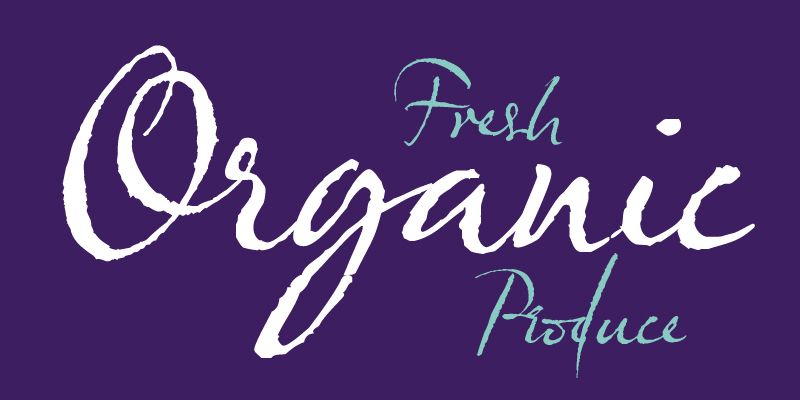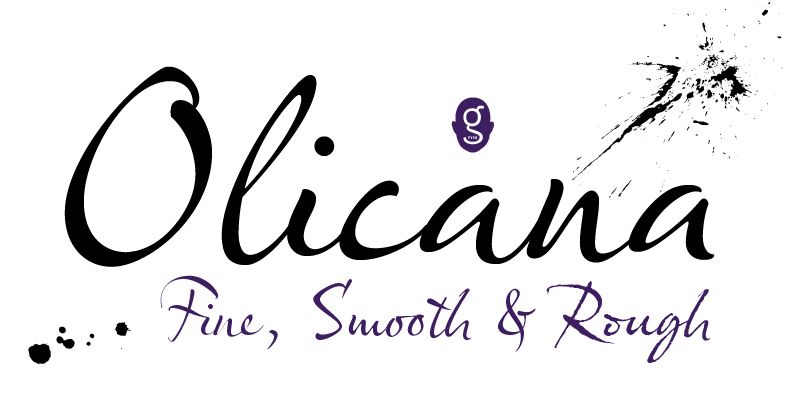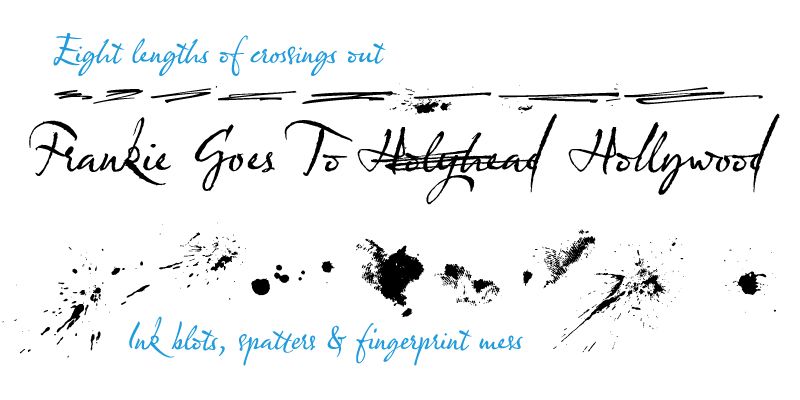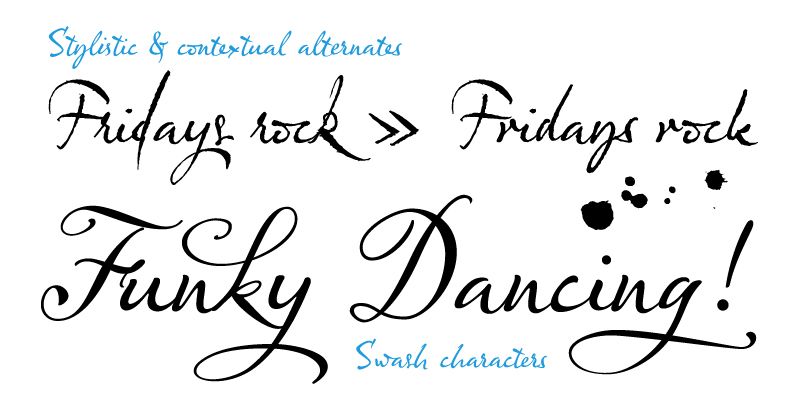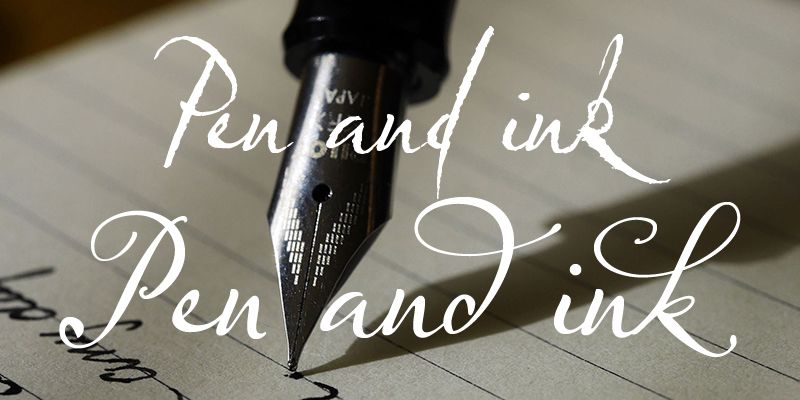
Olicana is an innovative script font that resembles handwriting with a fountain pen. Comprising 3 variants (Fine, Rough & Smooth), each font is brimming with ligatures, alternates, swashes and extra features such as ink splats and fingerprint mess.